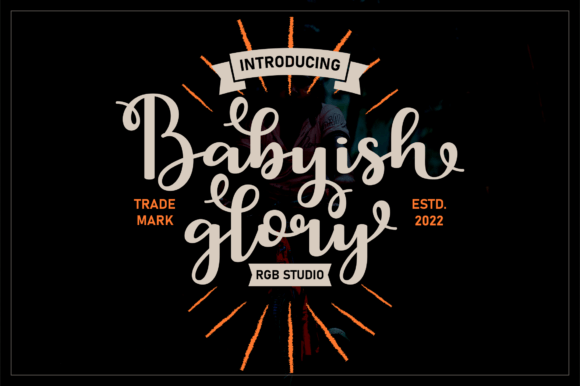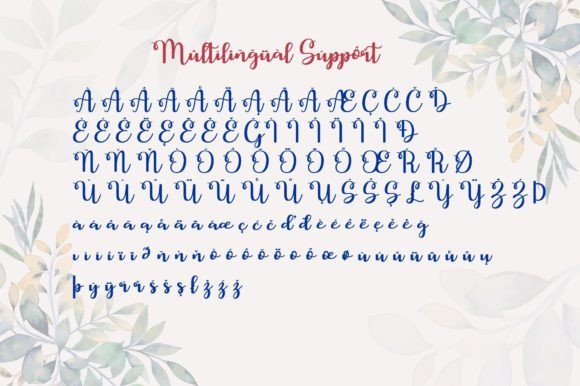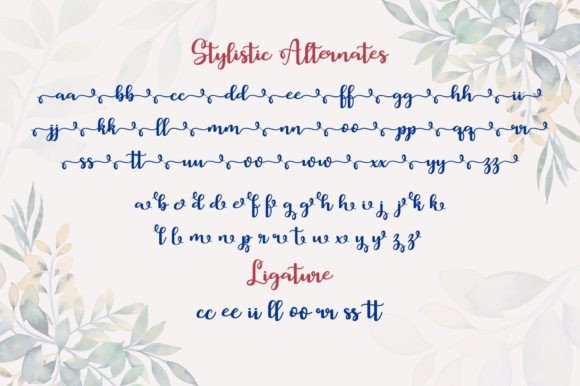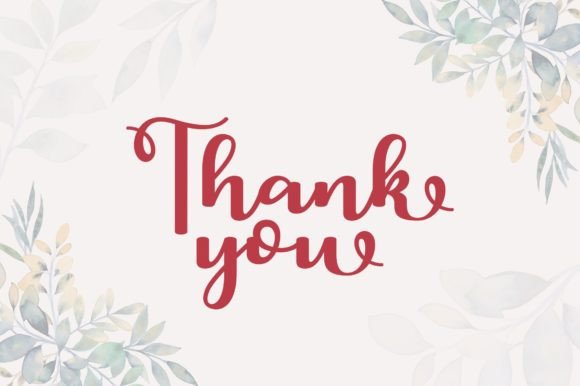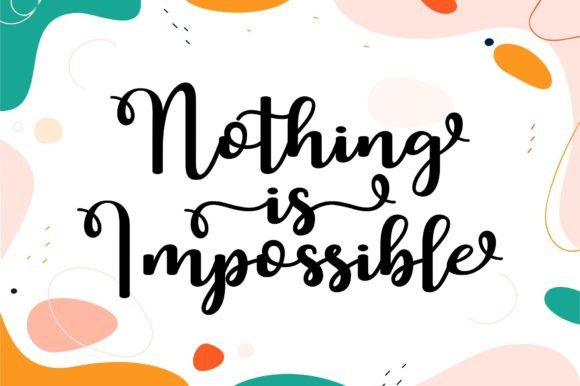
About Babyish Glory Font
Babyish Glory is a delicate, elegant, and flowing handwritten font. It has beautiful and well-balanced characters and as a result, it matches a wide pool of designs. This font is PUA encoded which means you can access all the glyphs and ligatures with ease!